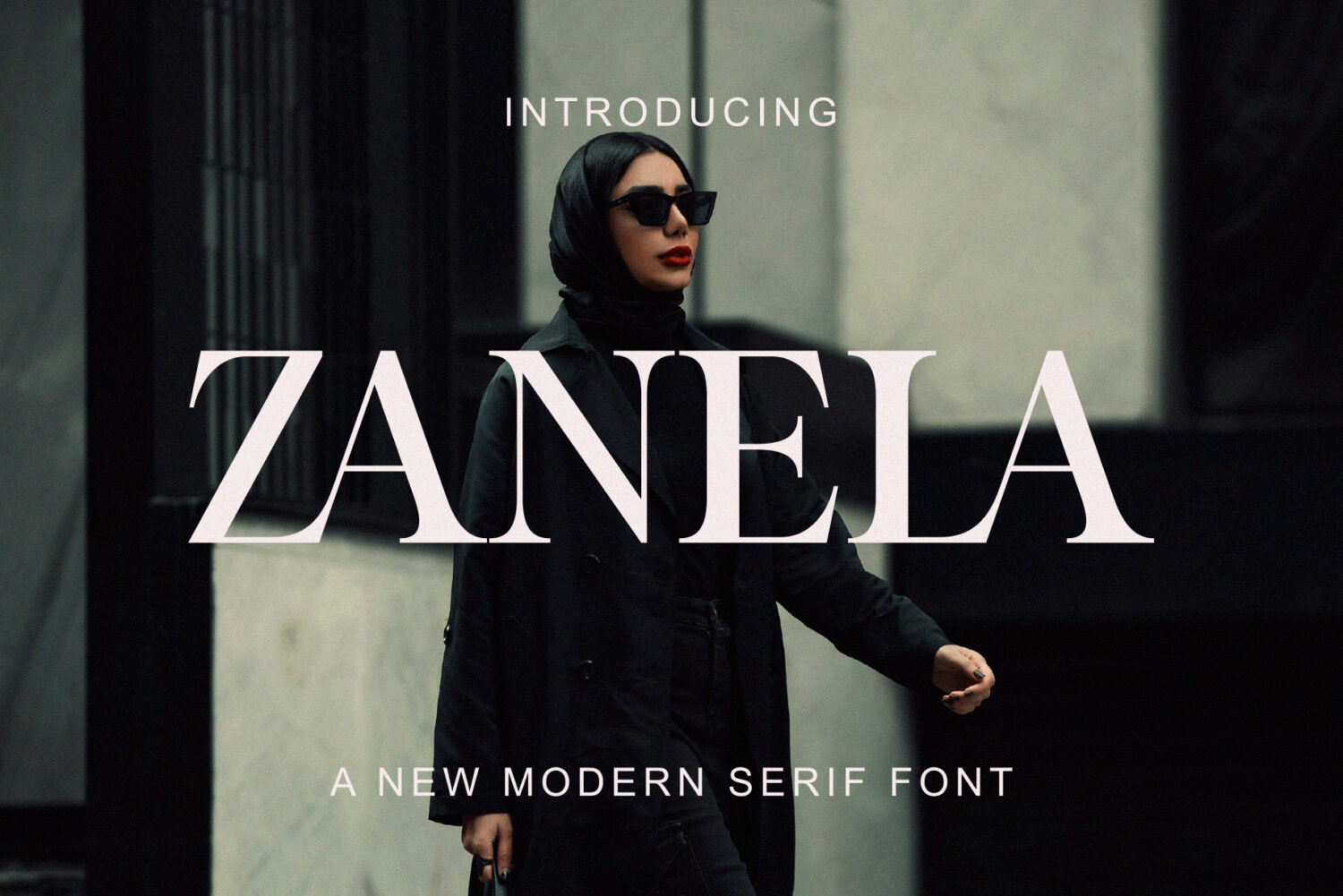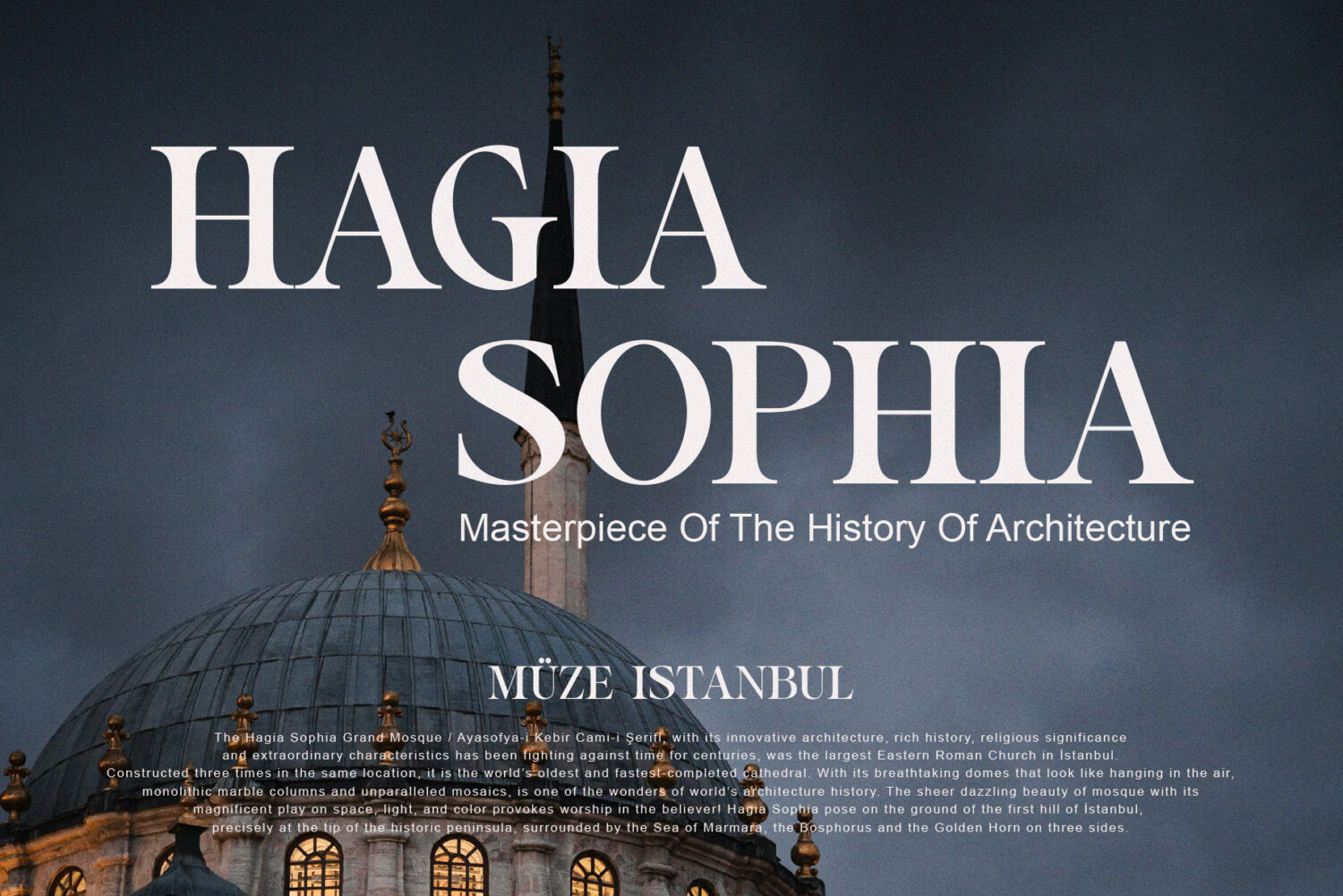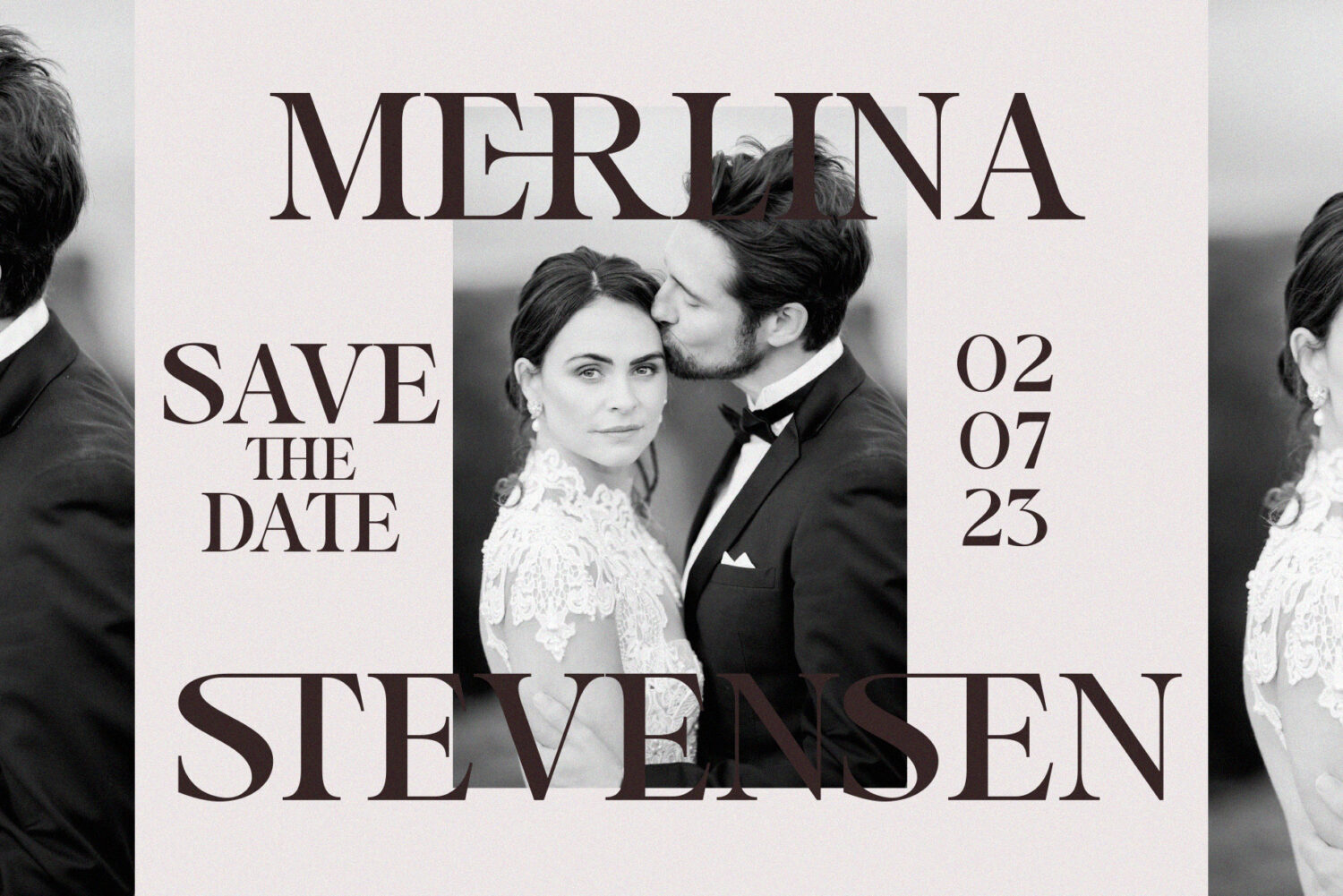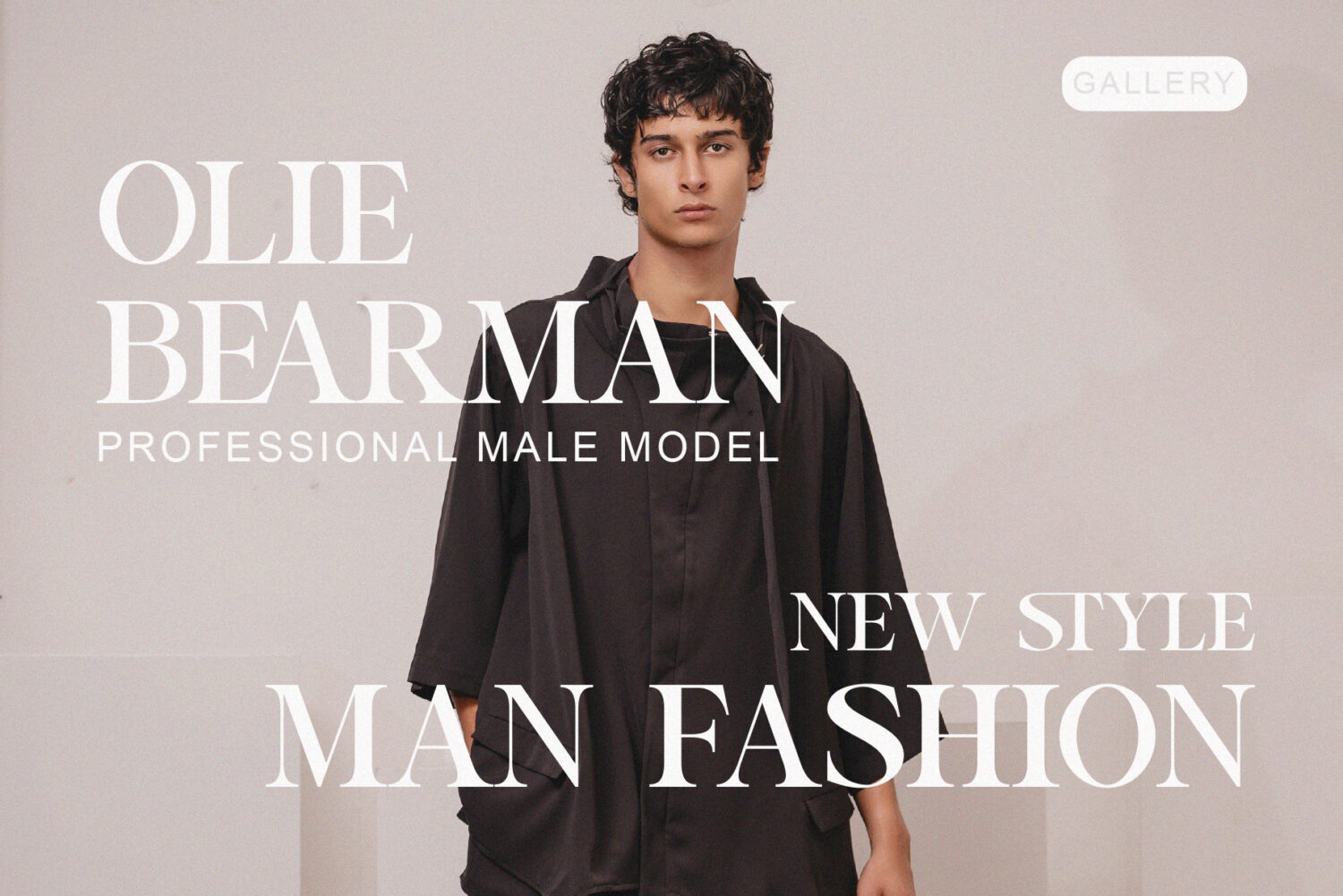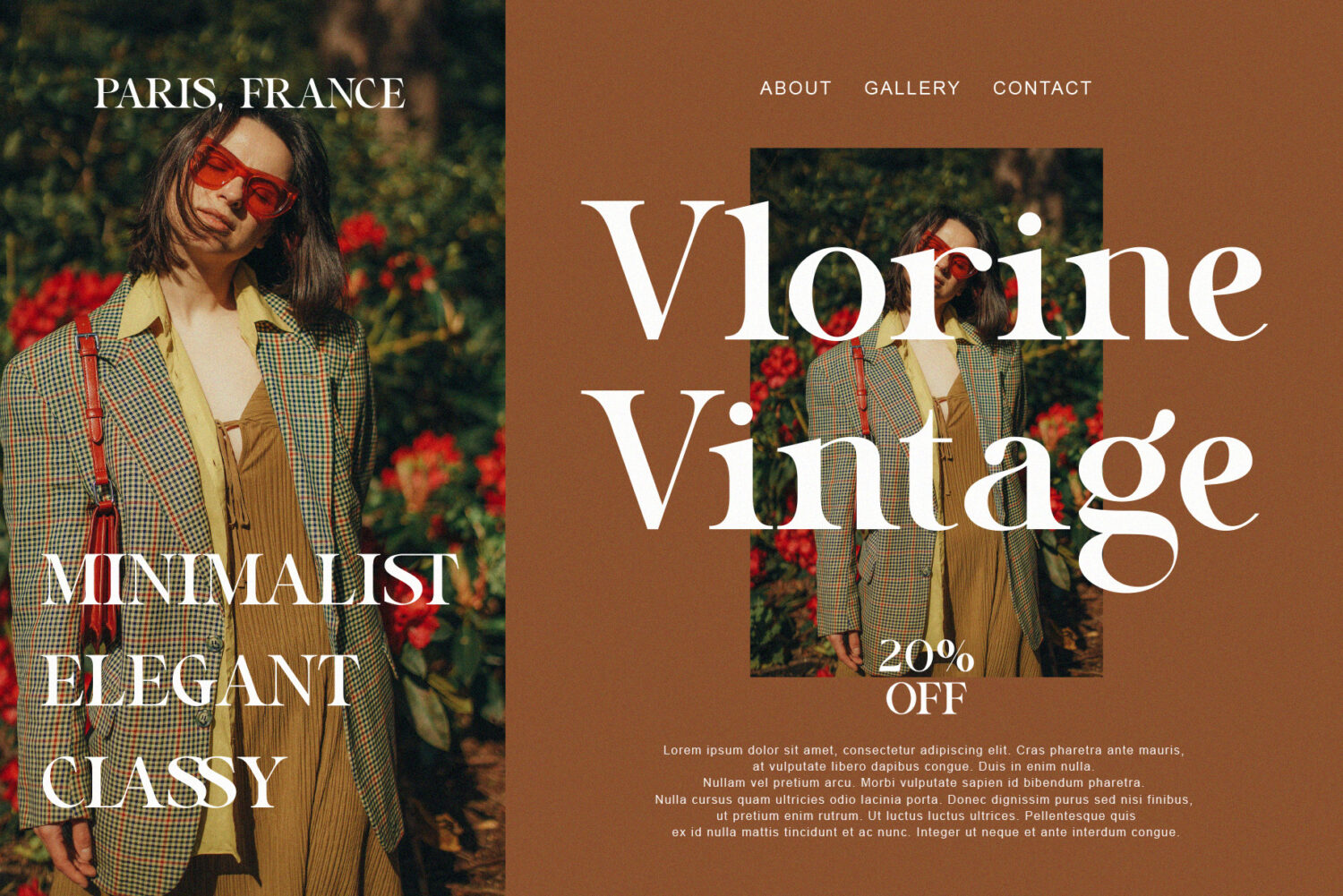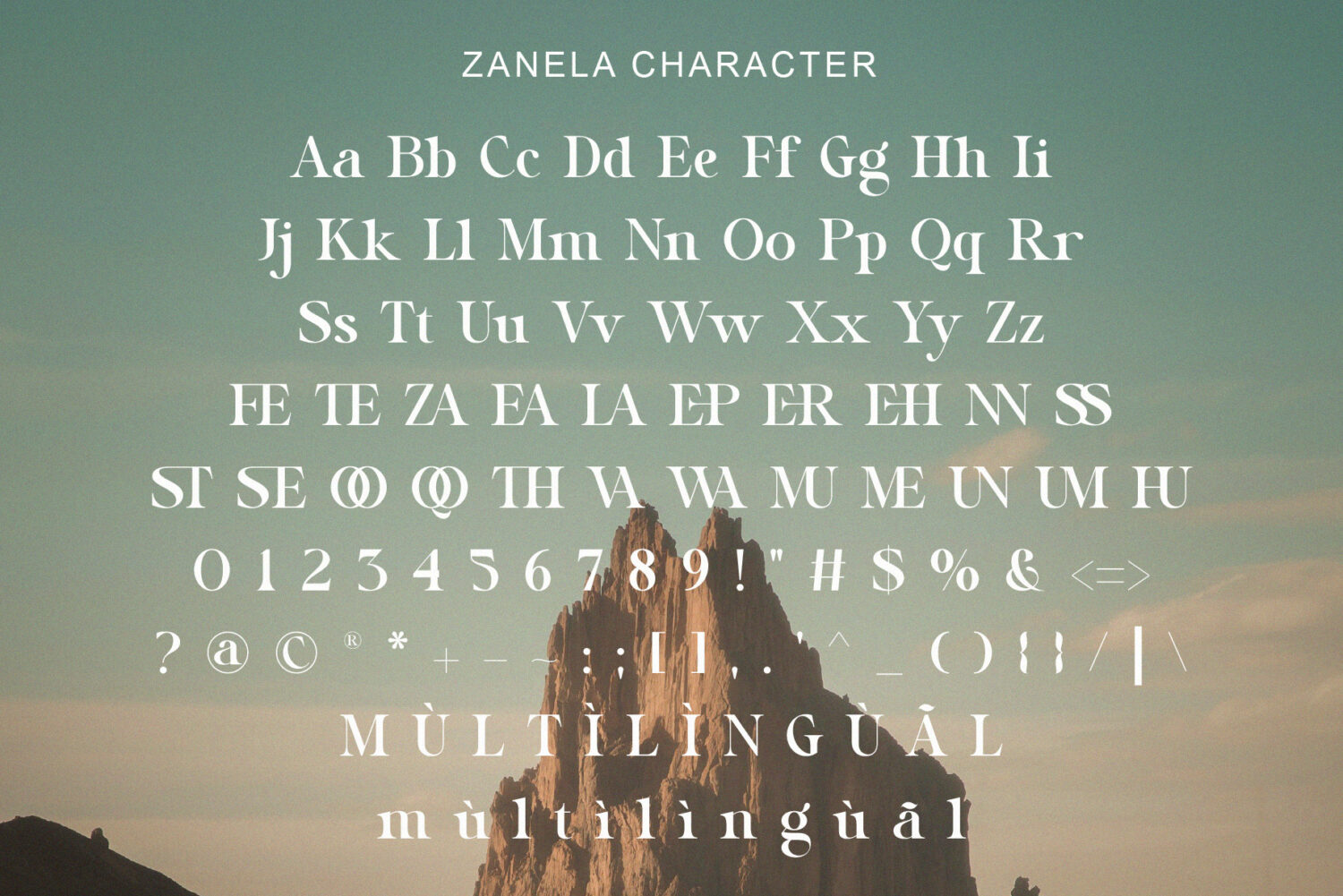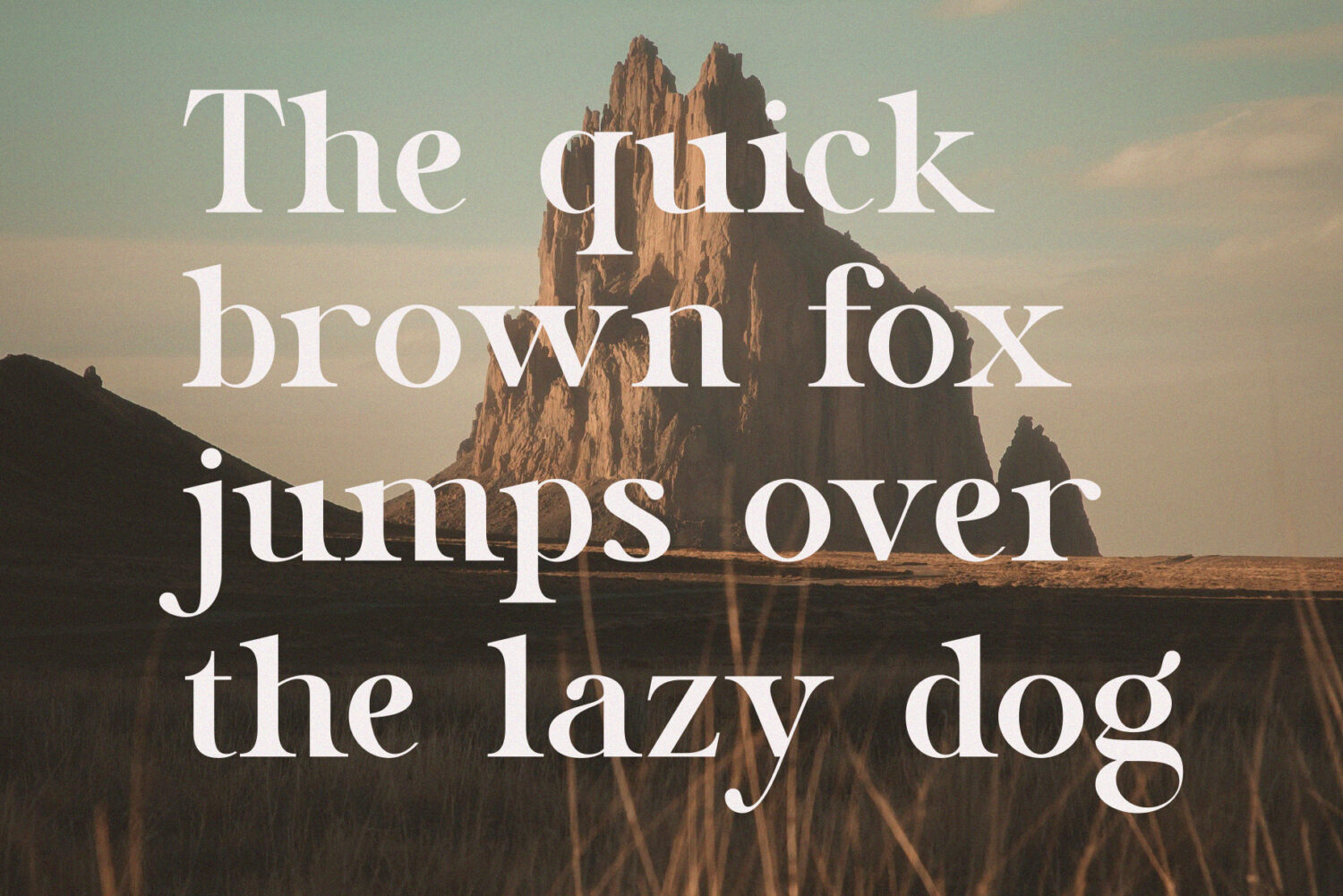
Introducing **Zanela** An elegant, beautiful and modern serif typeface. With its modern and minimalist appearance, Zanela brings a luxurious, classy and clean style to your projects such as websites, modern logos, branding identities, social media quotes, wedding stationery, magazines and various other needs!
Zanela features unique and classy capital letters A to Z and is equipped with unique binding letters so that Zanela is a beautiful font that can be adapted to various projects and jobs that you want.